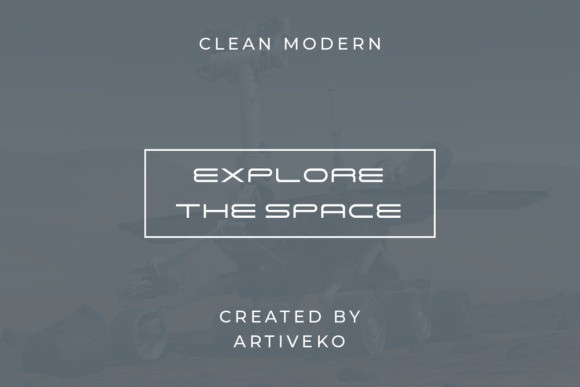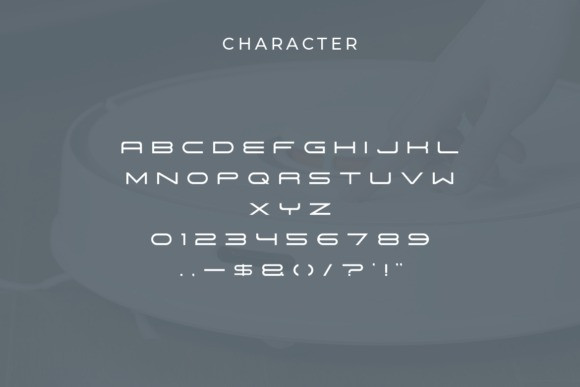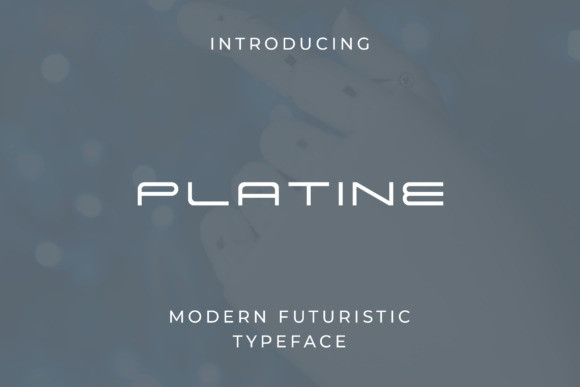
Platine Font
Platine Font is a sleek, high-tech sans serif font designed for the digital age. With its clean lines, precise geometry, and subtle sci-fi undertones, Platine brings innovation and clarity to any design. It’s perfect for UI/UX interfaces, tech startups, futuristic branding, gaming, apps, and bold headlines that demand attention.